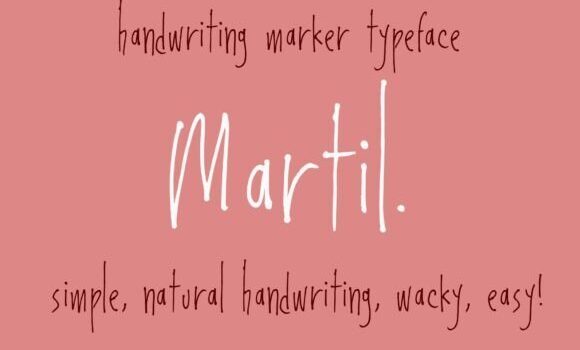
martil
Martil Font - Featured Image
Martil Font – Free Download Introduction to Martil Font Experience the organic appeal of Martil, a unique marker font that mirrors authentic, freehand handwriting. 📸 Preview Gallery 6 images 📌 Product Name Martil Font 👤 Author ogit 📂 Category Explore